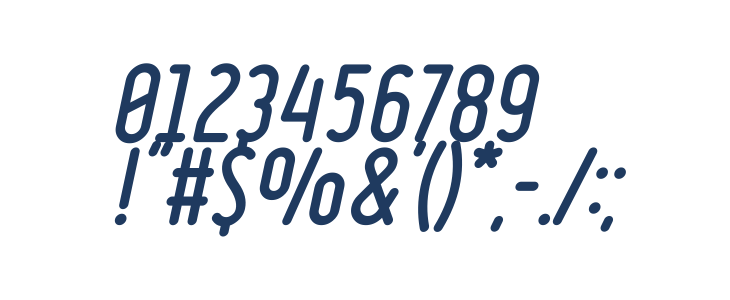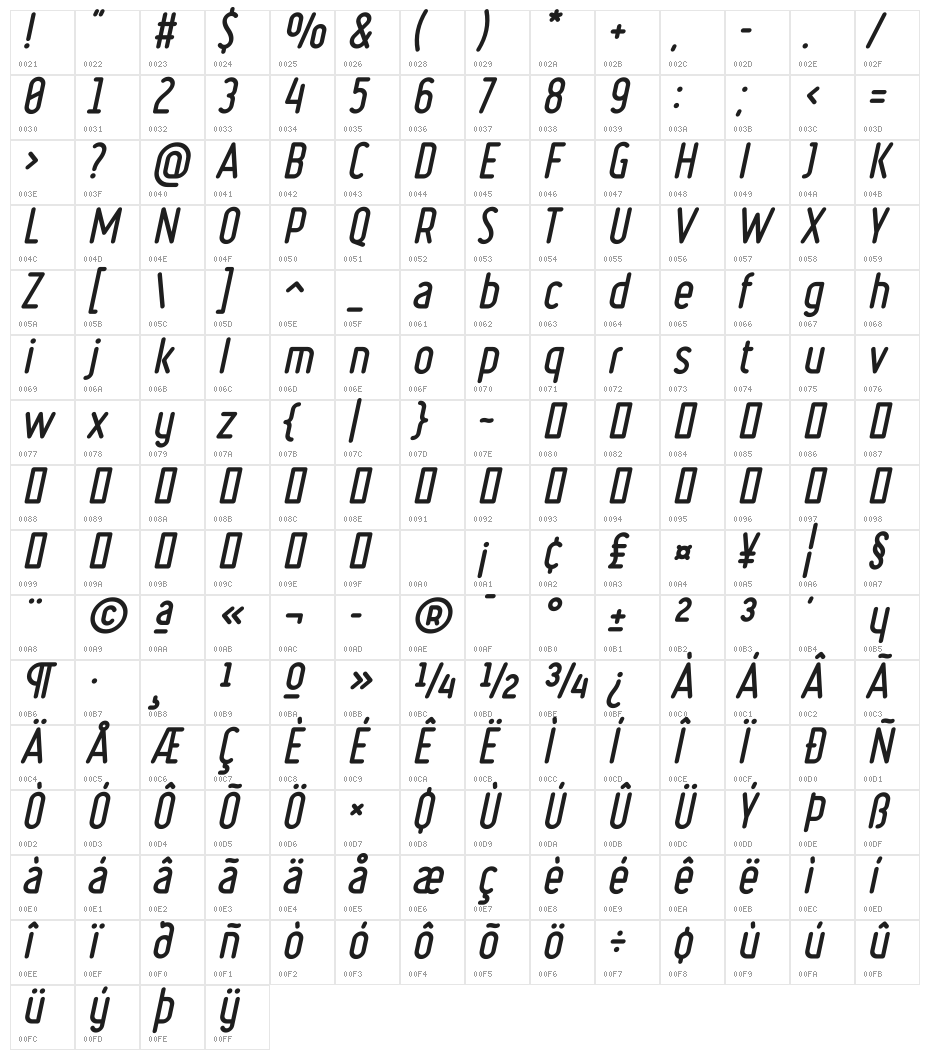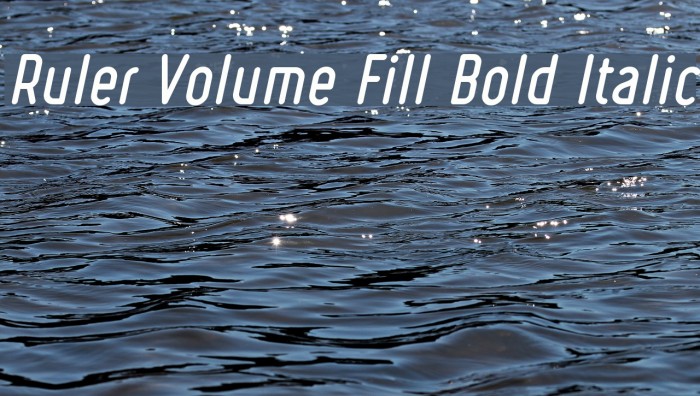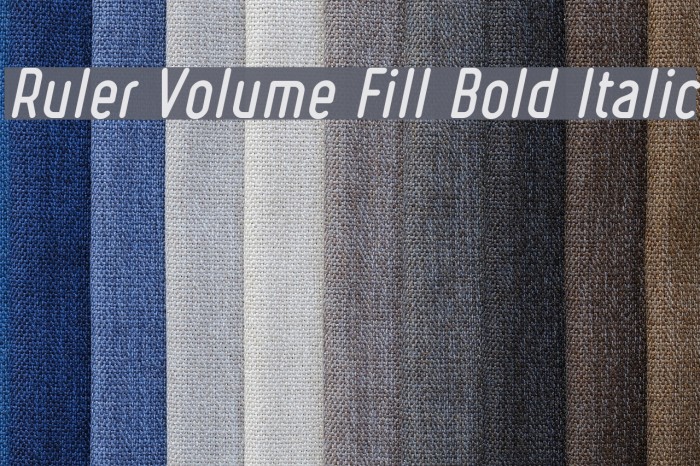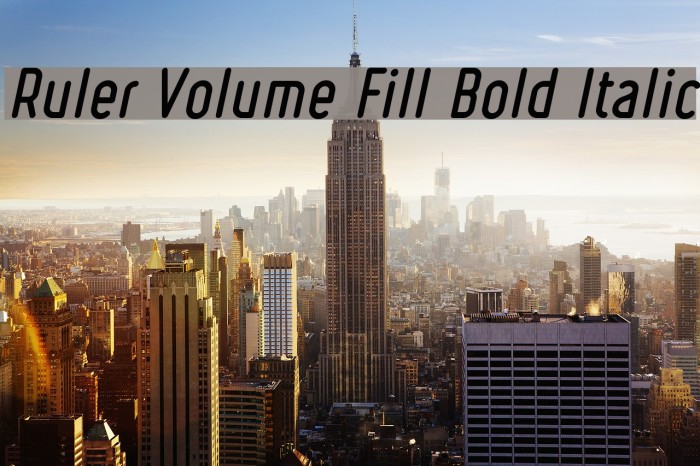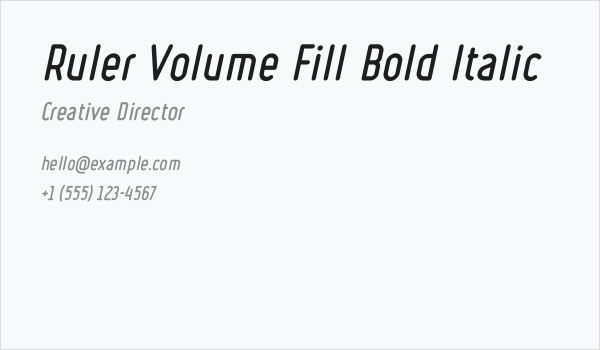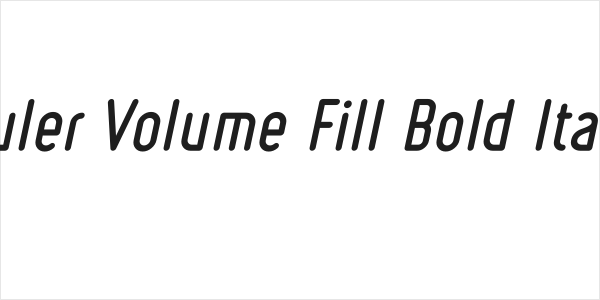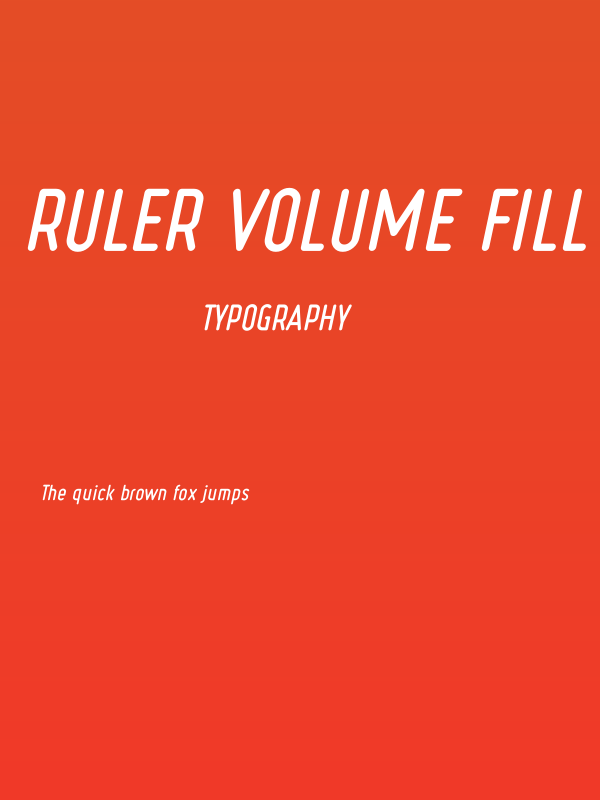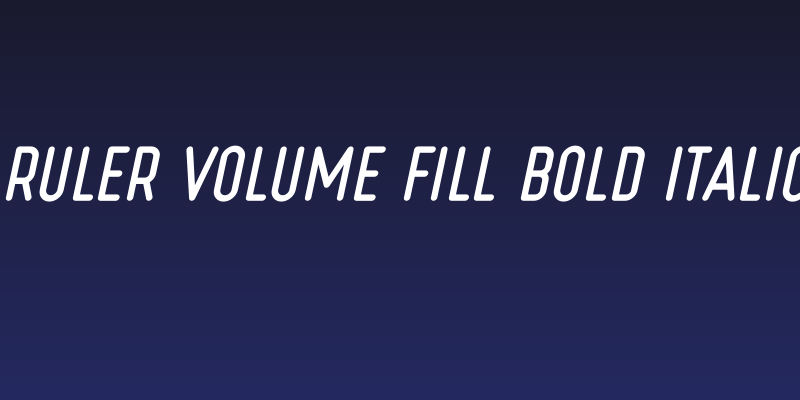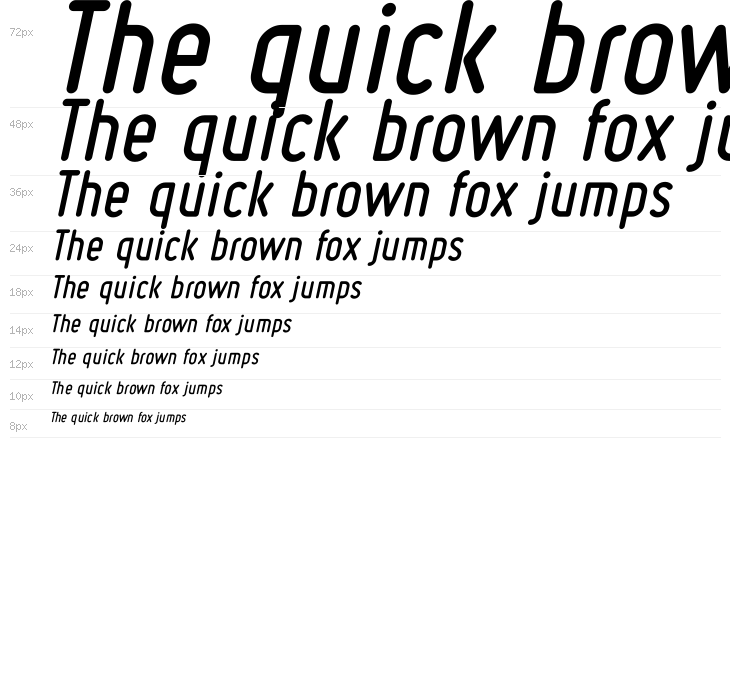
Ruler Volume Fill Bold Italic Font
Ruler Volume Fill Bold Italic Description
This font features a bold and italicized style with a modern and sleek appearance. The characters are slightly condensed, giving a streamlined look that enhances readability while maintaining a stylish edge. The uppercase and lowercase letters are well-proportioned, with a consistent stroke width that adds to the uniformity of the design. The numerals and special characters are crafted to match the overall aesthetic, providing a cohesive appearance across all glyphs. The font's design is versatile, making it suitable for a variety of applications where a contemporary and dynamic feel is desired.
| Use Case | Headlines, Logos, Digital Media |
| Proposed Projects | Ideal for branding, advertising, headlines, and digital media where a modern and dynamic look is needed. |